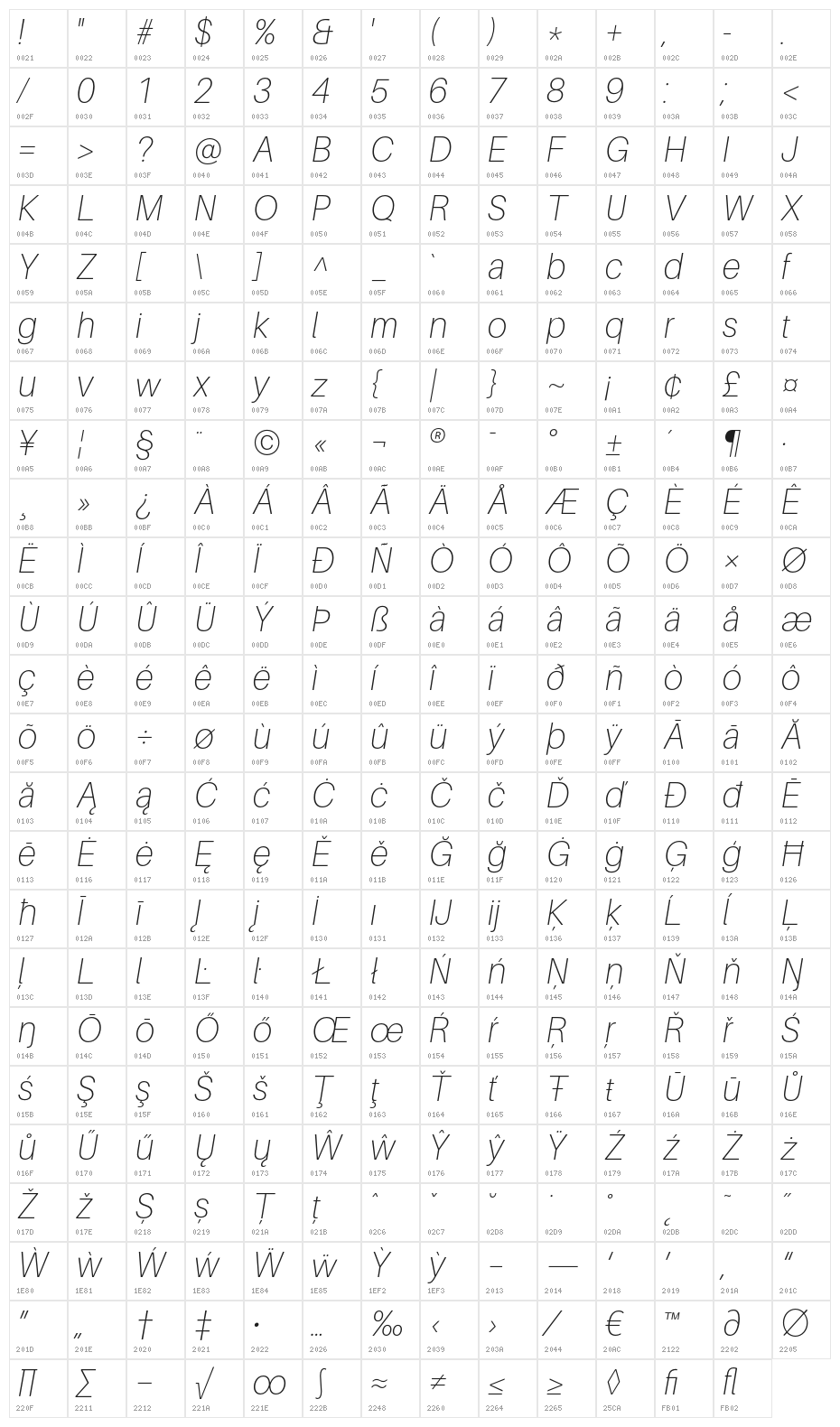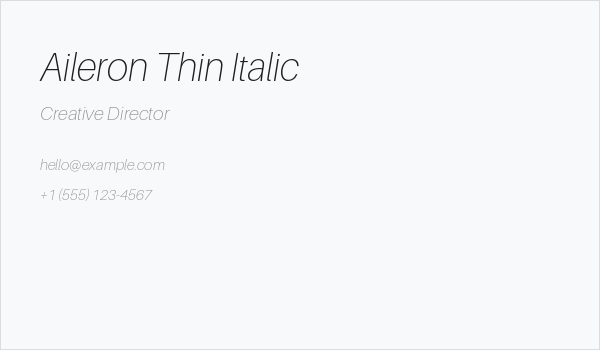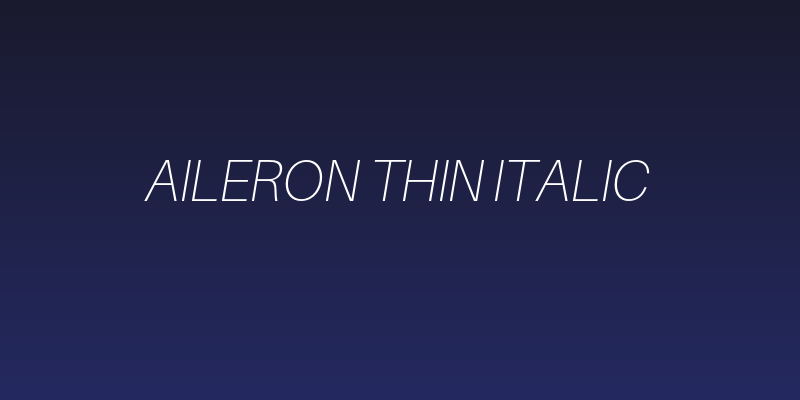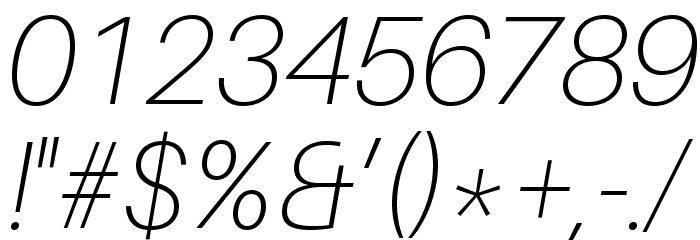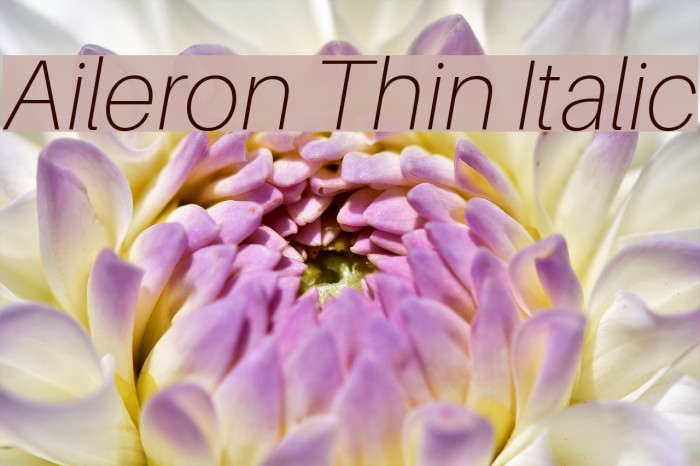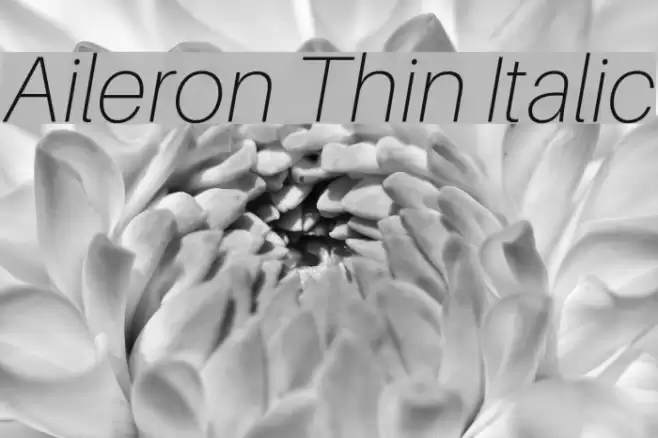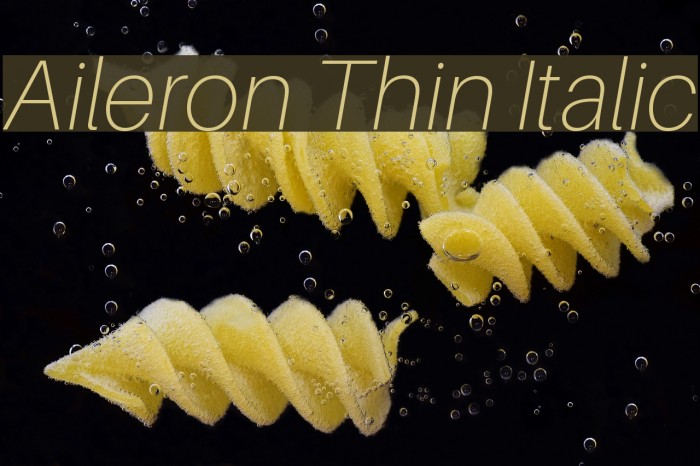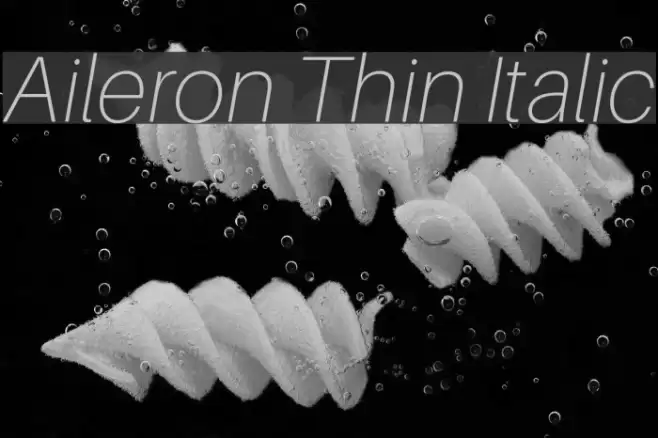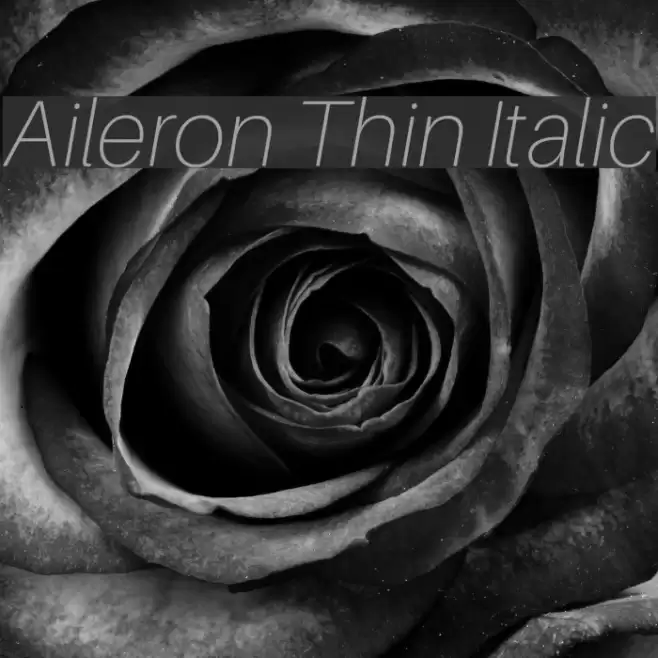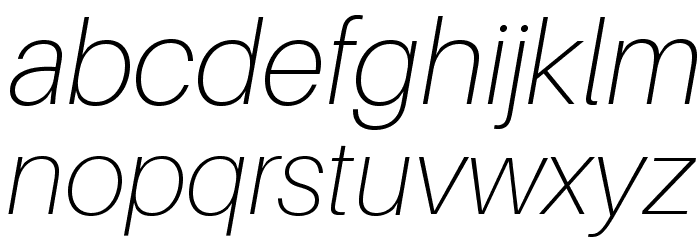
Aileron Thin Italic Font
Aileron Thin Italic Description
This font exhibits a sleek and modern aesthetic with its thin and elegant strokes. The italicized style adds a sense of motion and sophistication, making it suitable for contemporary design projects. The characters are well-proportioned, with a consistent slant that enhances readability while maintaining a stylish appearance. The uppercase and lowercase letters are distinct yet harmonious, and the numerals are clear and easy to read. Special characters are thoughtfully designed, complementing the overall minimalist look. This font's light weight and clean lines make it ideal for projects that require a refined and understated elegance.
| Use Case | Headlines, Body text, Logos |
| Proposed Projects | Ideal for fashion magazines, luxury branding, modern websites, and minimalist design projects. |